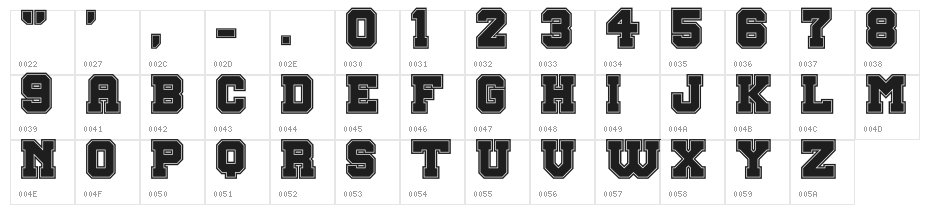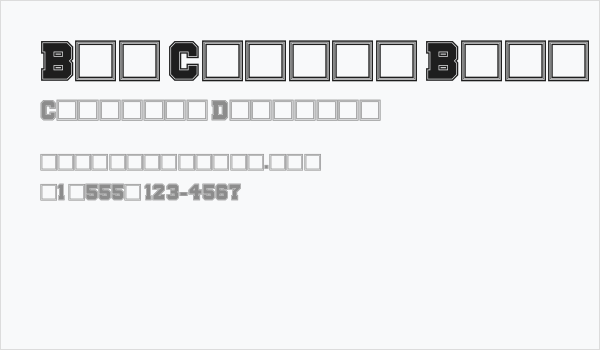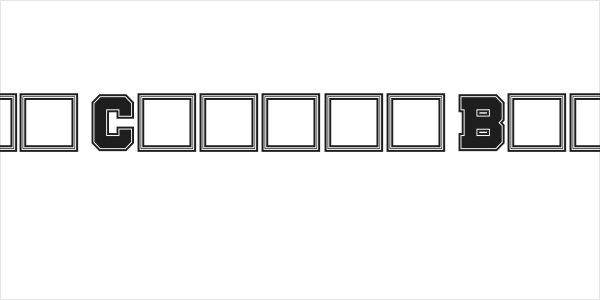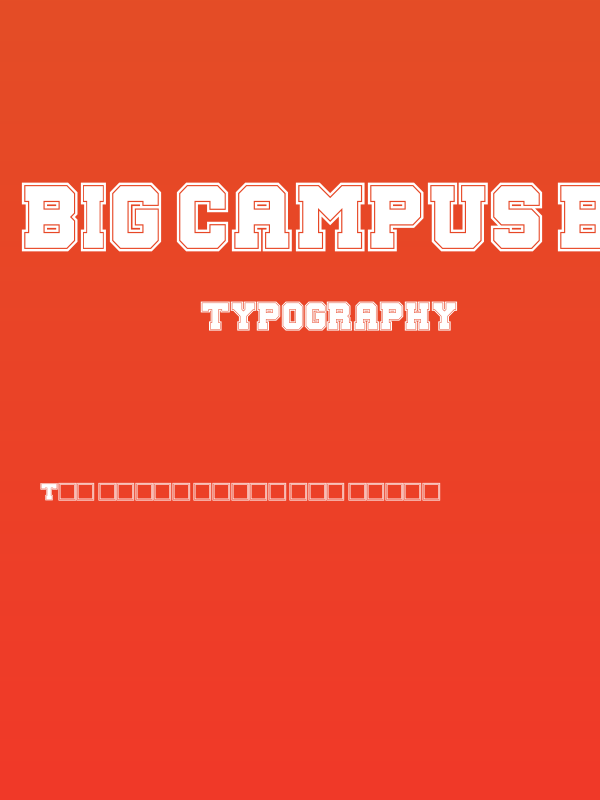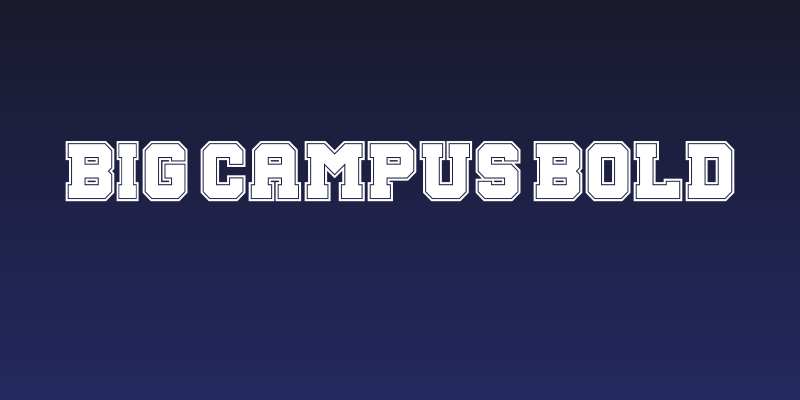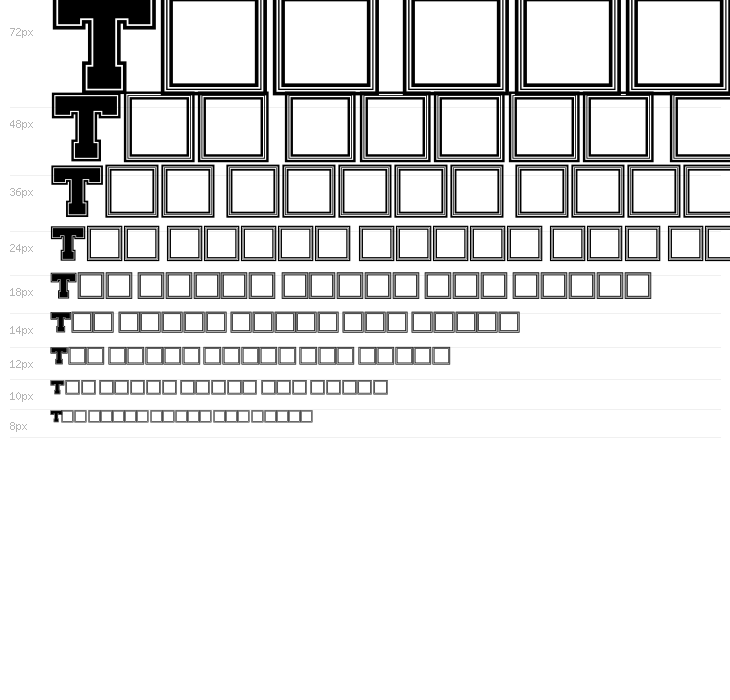
Big Campus Bold Font
Big Campus Bold Description
This font features a bold, collegiate style with strong geometric shapes and a three-dimensional effect. The letters are uppercase and have a blocky, robust appearance, reminiscent of traditional varsity or sports team lettering. The thick strokes and outlined edges give it a powerful and impactful look, making it ideal for designs that require a strong visual presence. The numbers and special characters follow the same bold and structured design, ensuring consistency across all elements.
| Proposed Projects | Ideal for sports team branding, university merchandise, posters, and any project requiring a bold, impactful typeface. |